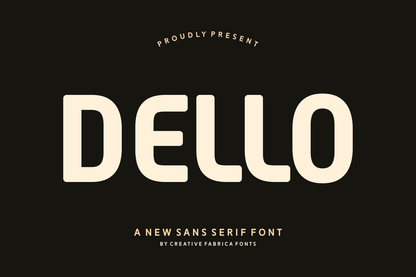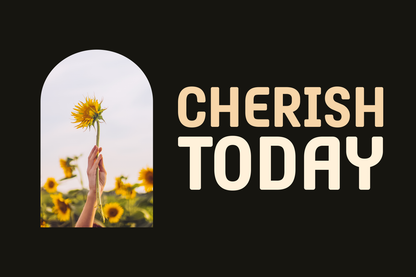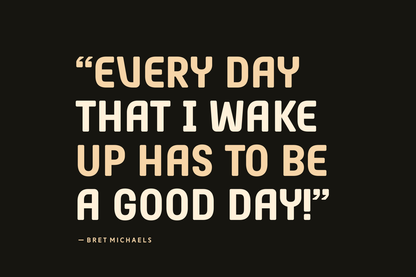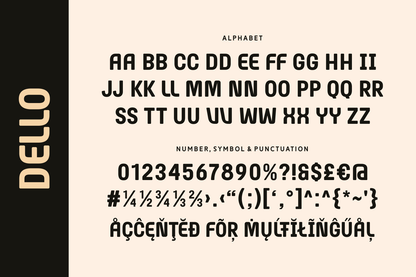
Dello is a bold, rounded sans serif font that brings a soft yet strong personality to your designs. Its smooth edges and modern proportions make it perfect for branding, logo design, children's products, or tech interfaces with a friendly vibe.